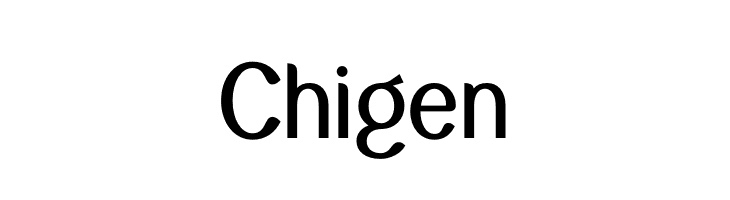
A modern sans-serif font with clean lines and a slightly condensed structure.
A bold, graffiti-inspired font with sharp angles and a dripping effect.
A futuristic, italicized font with a shadow effect and geometric design.
A whimsical and ornate font with decorative swirls and curls.
A bold, rustic font with a handcrafted, distressed texture.
A bold, decorative font with intricate tattoo-inspired detailing.
A playful, handwritten-style font with bold, rounded characters.
A bold, hand-painted style font with dynamic, textured strokes.
设计师偏爱 Chigen, Rifredi Rude Boy, Electrical Snow, Filled Spots Regular and Grimlord Shadow Italic,因为其造型干净、适用范围广—— 从品牌识别到落地页、海报都能胜任。